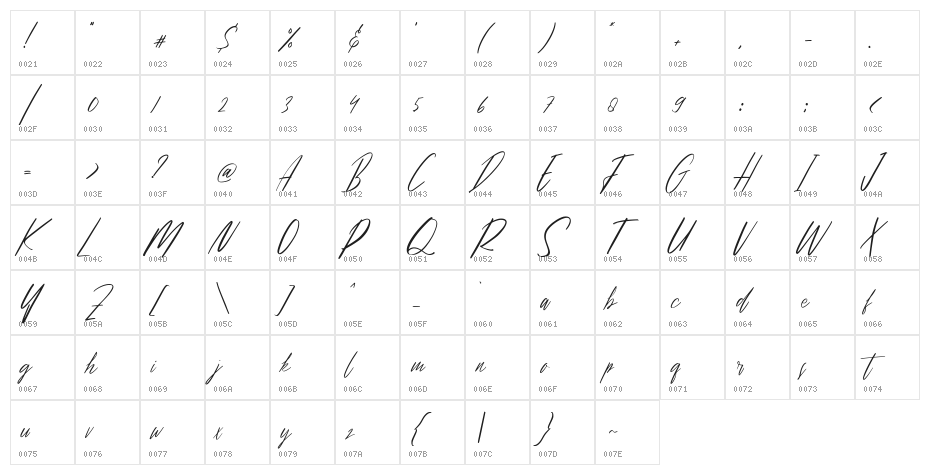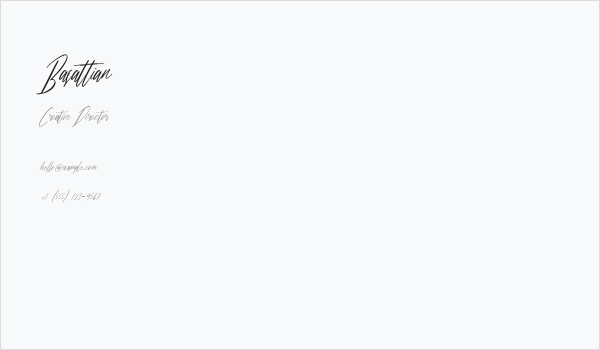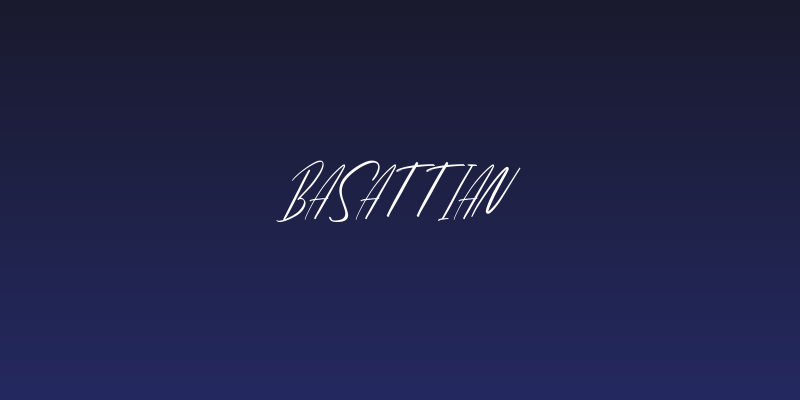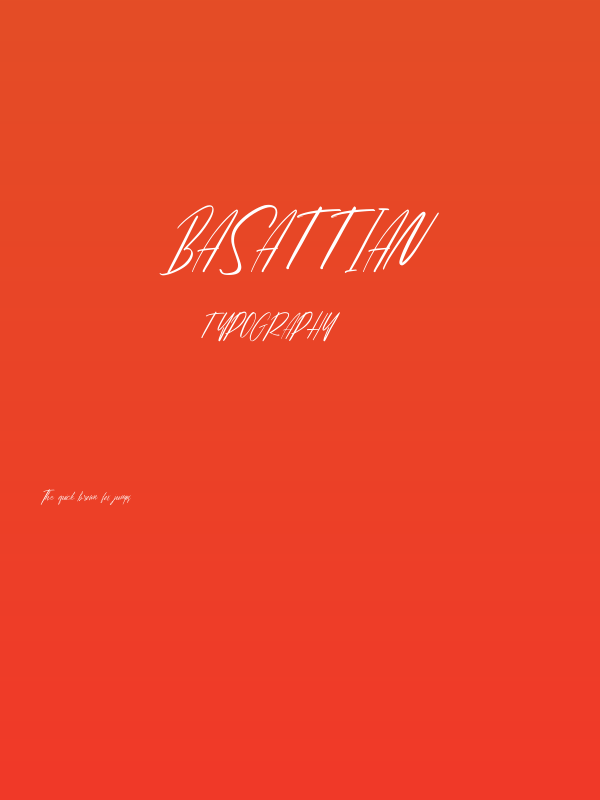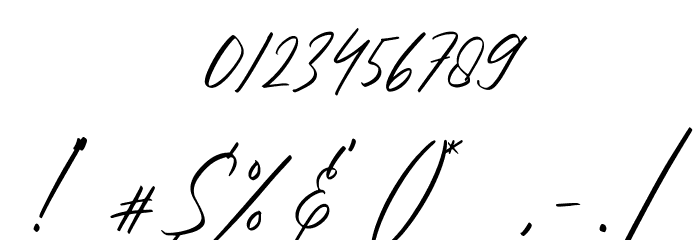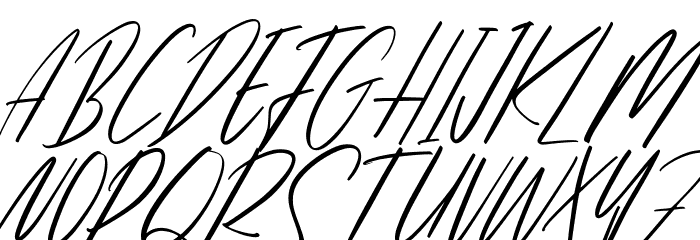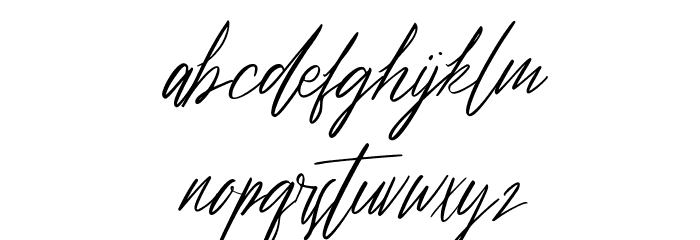
Basattian Font
Basattian Description
This font features a dynamic and fluid script style, characterized by its elegant and flowing letterforms. The uppercase letters are tall and slightly slanted, giving a sense of movement and grace. The lowercase letters maintain a consistent style with smooth curves and a handwritten appearance. The numerals and special characters complement the overall aesthetic, maintaining the same fluidity and elegance. This font exudes a sense of sophistication and creativity, making it suitable for projects that require a personal and artistic touch.
BASATTIAN UPPERCASE
BASATTIAN LOWERCASE
BASATTIAN OTHER CHARS
| Proposed Projects | Ideal for wedding invitations, greeting cards, personal branding, and artistic projects that require a touch of elegance and creativity. |